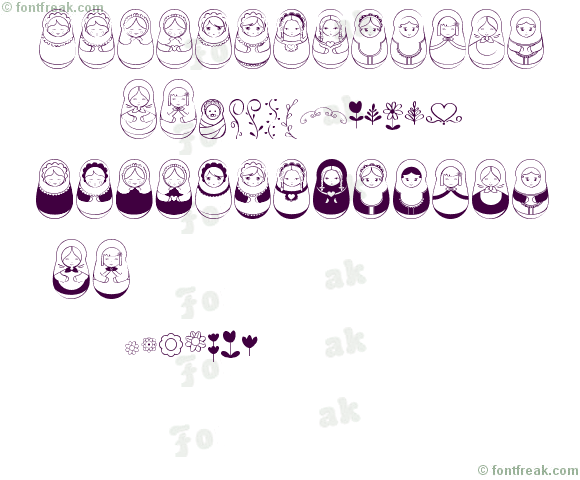
Matriochkas
Matriochkas by Maelle.K is a captivating decorative font that draws inspiration from the traditional Russian nesting dolls, known as Matryoshka. This unique typeface features an engaging visual style characterized by its bold, rounded strokes that create a sense of warmth and playfulness. The stroke weight is consistent, providing a harmonious flow throughout the characters, while the spacing is balanced, ensuring readability even in larger blocks of text. Decorative elements are present, with whimsical motifs that evoke the charm of folk art, making this font perfect for a variety of creative applications.
Matriochkas is particularly well-suited for wedding invitations, where its delightful design can add a personal touch to any love story. It also shines in children's book covers, where its playful aesthetic can attract young readers. Additionally, this font can enhance restaurant menus, offering a friendly and inviting vibe that complements a cozy dining atmosphere. Graphic designers will find it useful for crafting eye-catching event posters, as its distinctive character will draw attention and engage viewers. Small business owners can also leverage the Matriochkas font free download to create memorable branding materials that resonate with their target audience.
This font stands out not only for its visually appealing design but also for its versatility across different mediums. Its ability to convey warmth and charm makes it an excellent choice for anyone looking to infuse a sense of personality and creativity into their projects. Whether you're a graphic designer, content creator, or a small business owner, Matriochkas offers a unique solution that can elevate your designs and leave a lasting impression.